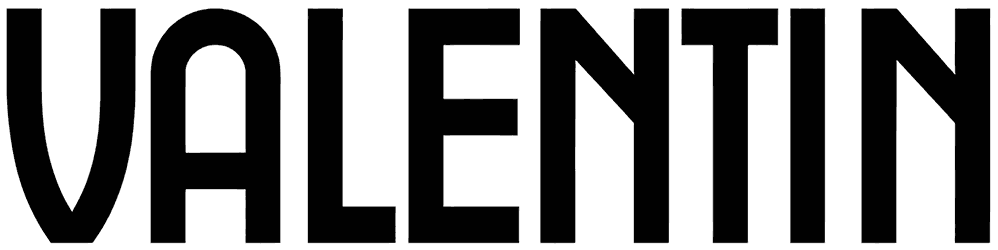
Athena Font
Are you searching for a smooth and modest outward for your words? This sans-serif font, with its bold and distinct style, can be the exact answer. Even if Athena doesn’t possess lowercase letters, it can be a nice pickup for numerous items such as logotypes, headlines, covers, wordmarks, and so forth.